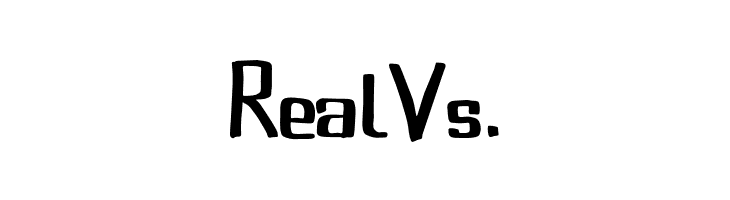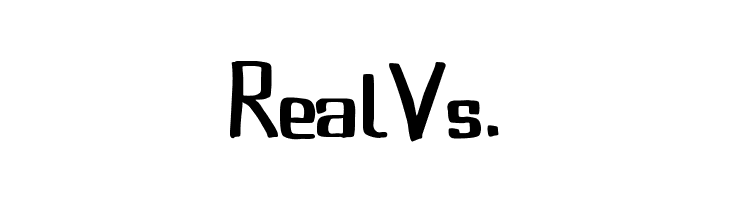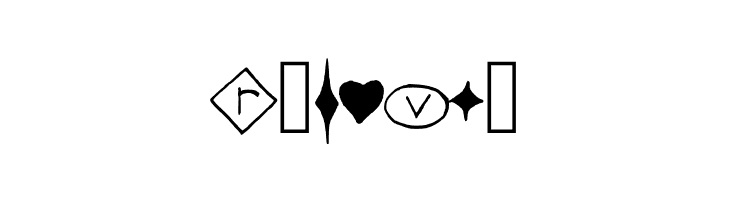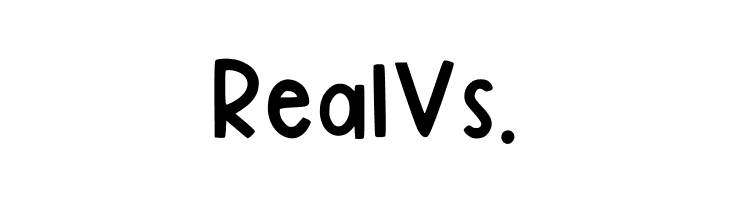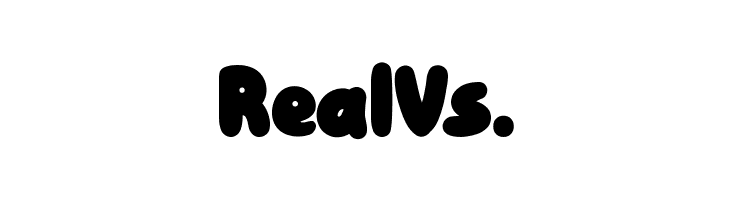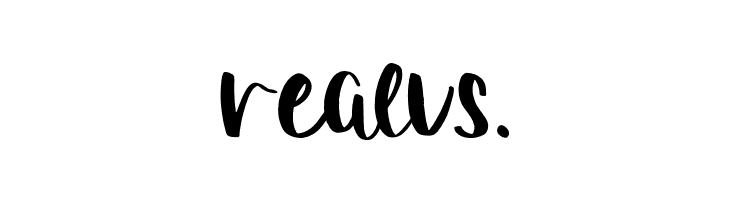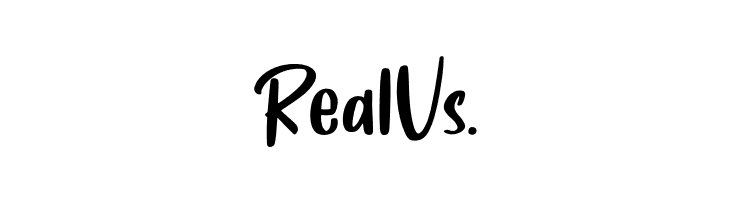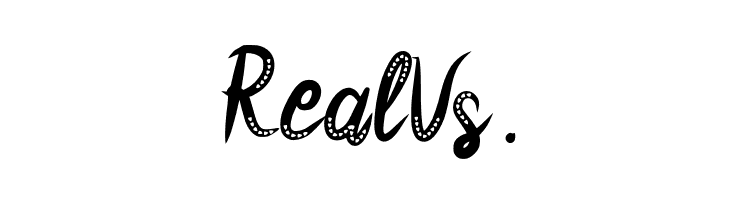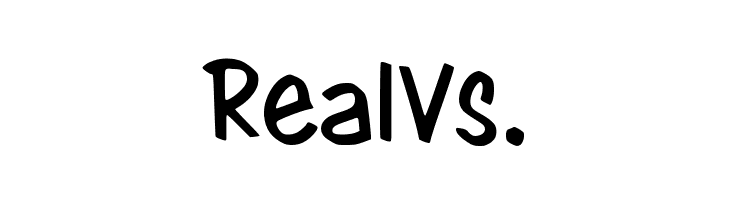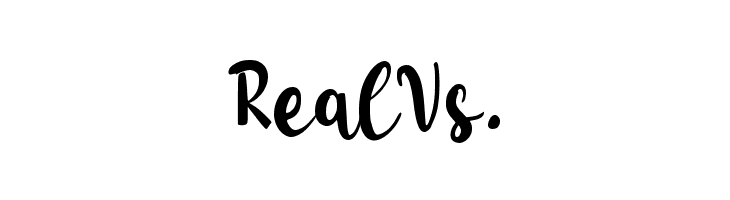
A bold, modern typeface with clean lines and geometric structure.
A chaotic, distressed font with jagged, irregular strokes and a bold, energetic style.
A bold, playful font with a dotted texture and cartoonish style.
A bold, playful font with rounded, outlined characters and a cartoonish style.
A playful, handwritten-style font with a casual and friendly vibe.
A hand-drawn, narrow font with a playful and organic style.
A playful and decorative font with intricate patterns and bold designs.
A clean, modern sans-serif font with rounded edges and uniform stroke width.
A playful, bold handwritten font with smooth, rounded strokes.
A playful, bold, and rounded font with a hand-drawn feel.
A bold, brushstroke-style font with dynamic and irregular edges.
A decorative and artistic font with intricate patterns and bold designs.
A playful, casual handwritten font with smooth, rounded edges.
A bold, playful handwritten font with dynamic strokes.
A modern, high-contrast font with elegant and sophisticated styling.
An elegant, decorative font with intricate swashes and flourishes.
A bold, playful script font with dynamic curves and lively character.
A bold, distressed font with a textured, vintage appearance.
A playful script font with decorative polka dot accents and dynamic strokes.
A playful, bold font with whimsical curves and decorative dots.
A playful, whimsical font with circular dot embellishments and a smooth, flowing style.
A bold, modern font with a geometric and angular design.
A bold, angular Blackletter-inspired font with a strong, authoritative presence.
Bold, festive script with calligraphic brush strokes.
A playful, ghostly font with irregular, wavy strokes and a hand-drawn appearance.
A playful, handwritten font with fluid strokes and a casual style.
A playful, whimsical font with decorative shapes and symbols.
A bold, playful font with irregular, hand-drawn shapes and a whimsical style.
A playful, bold font with rounded, bubbly characters ideal for fun designs.
A bold, italic font with a dynamic and energetic style.
A bold, playful handwritten font with thick, uneven strokes.
A playful, hand-drawn font with bold, rounded characters and a whimsical style.
A playful, hand-drawn font with irregular, wavy letterforms.